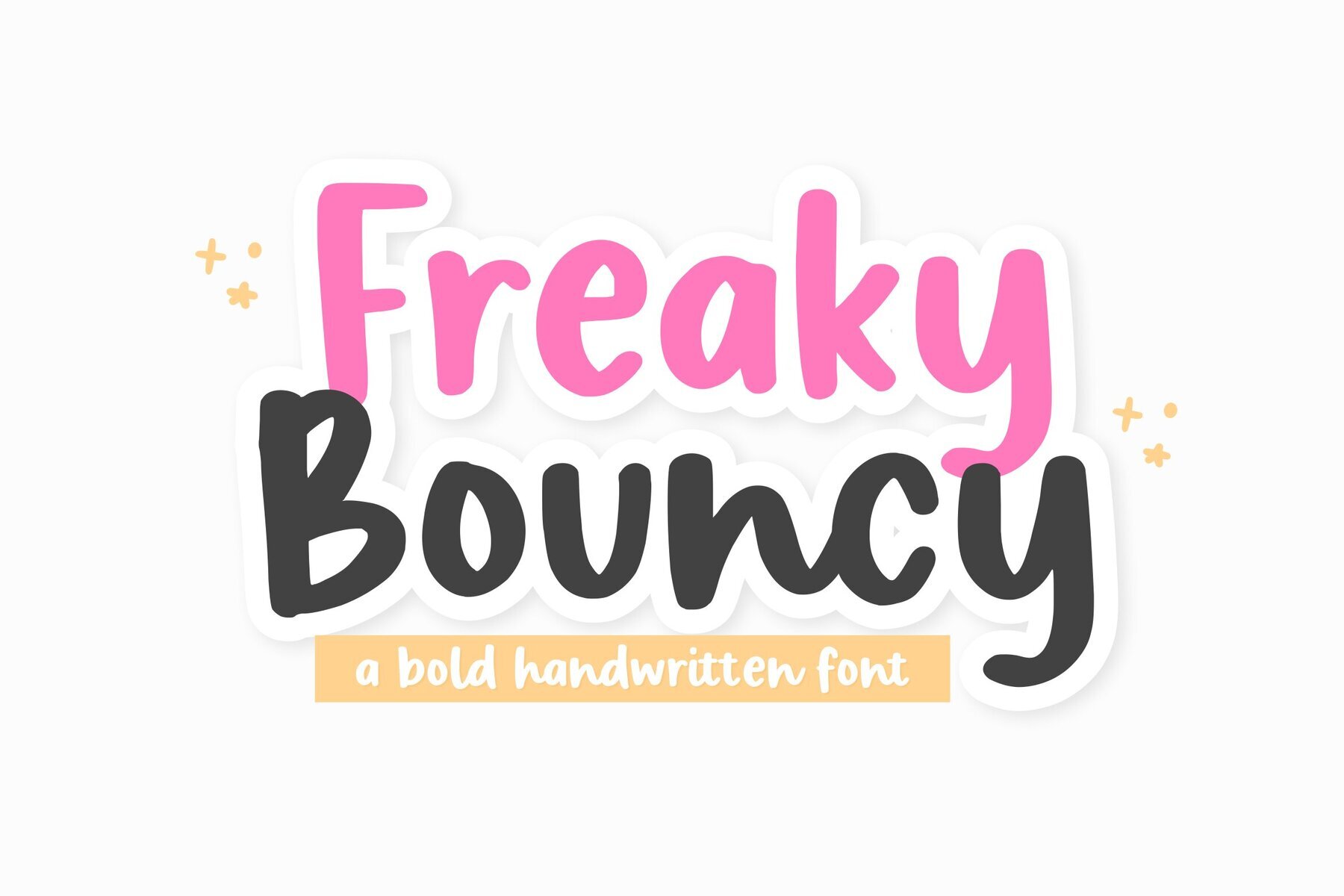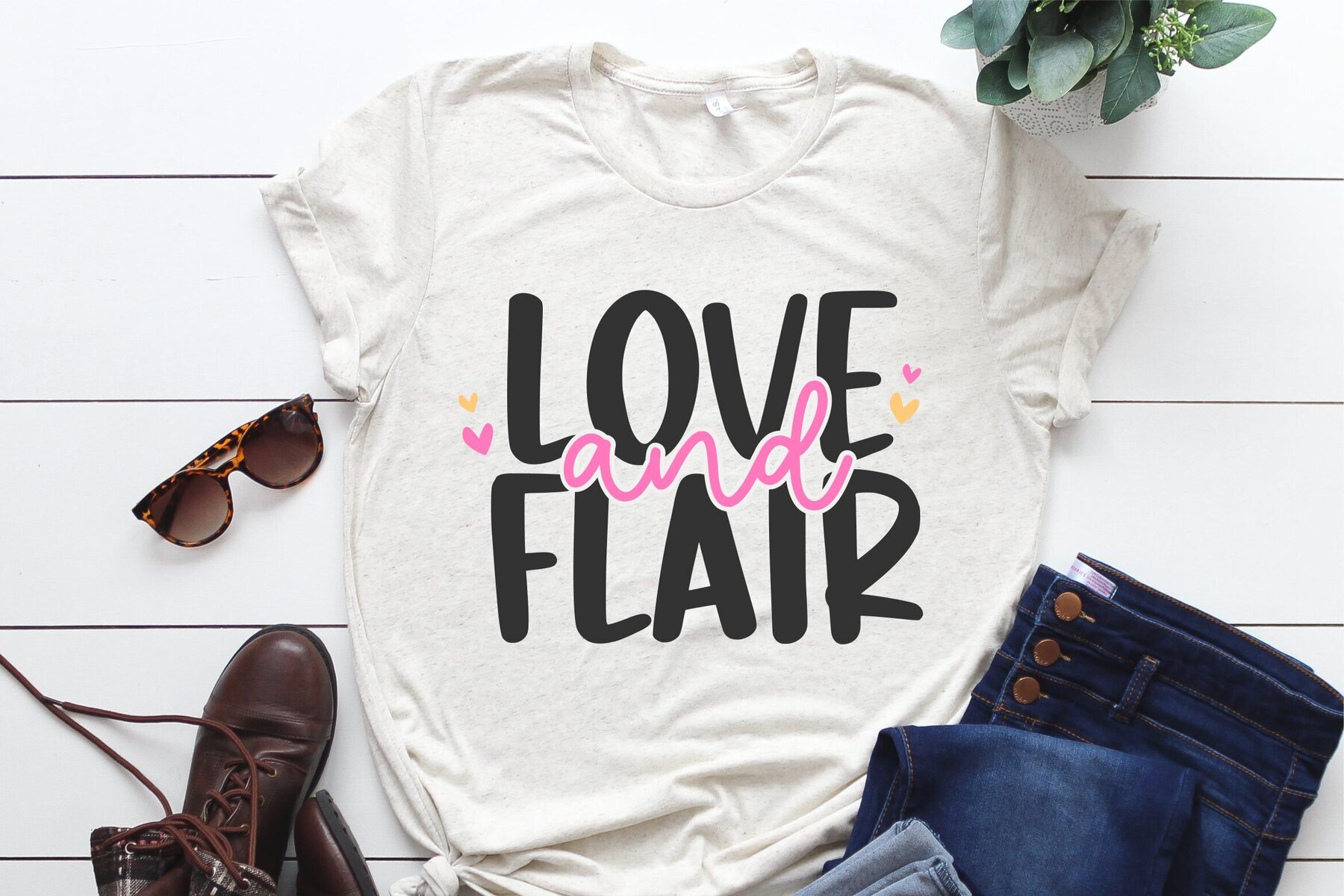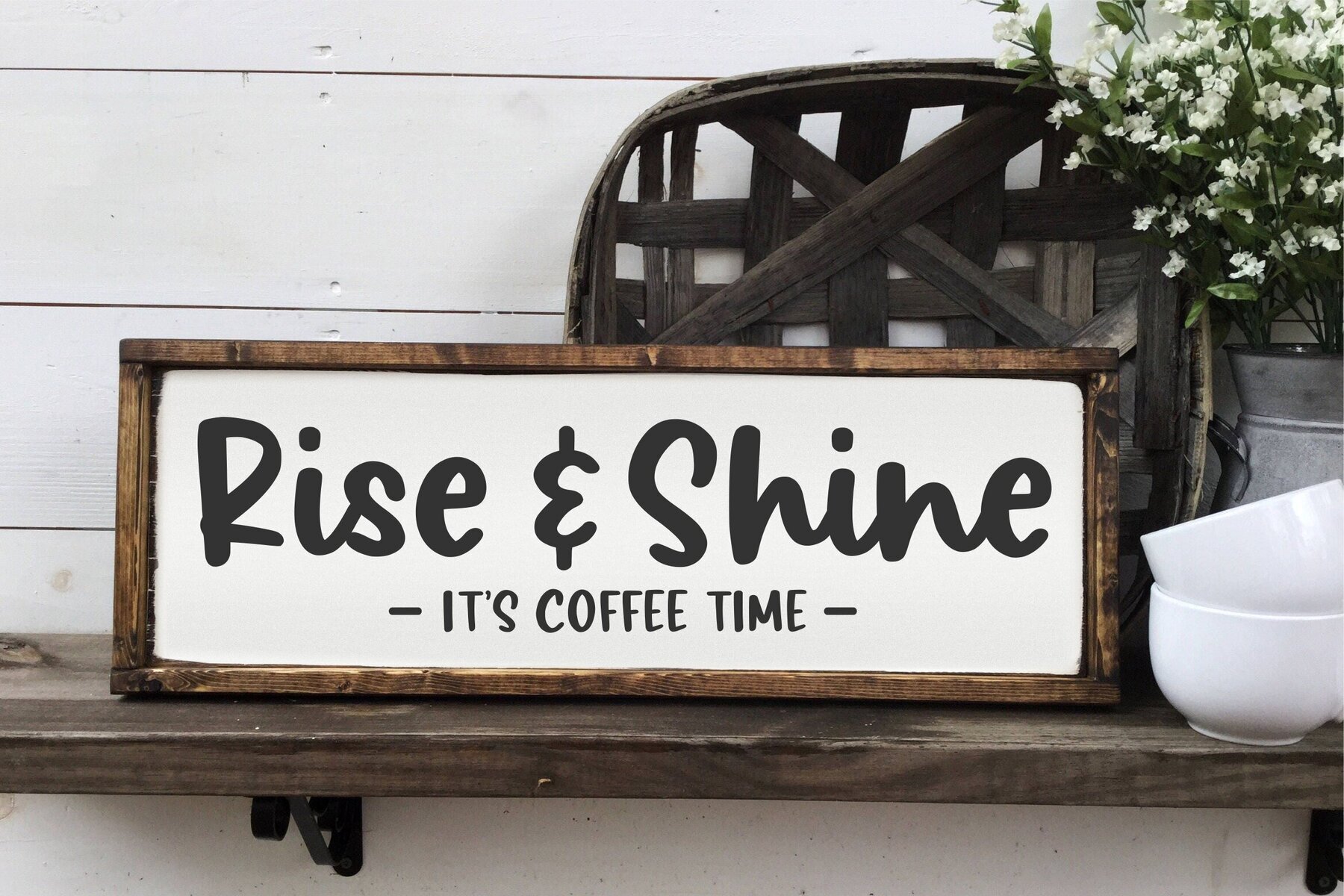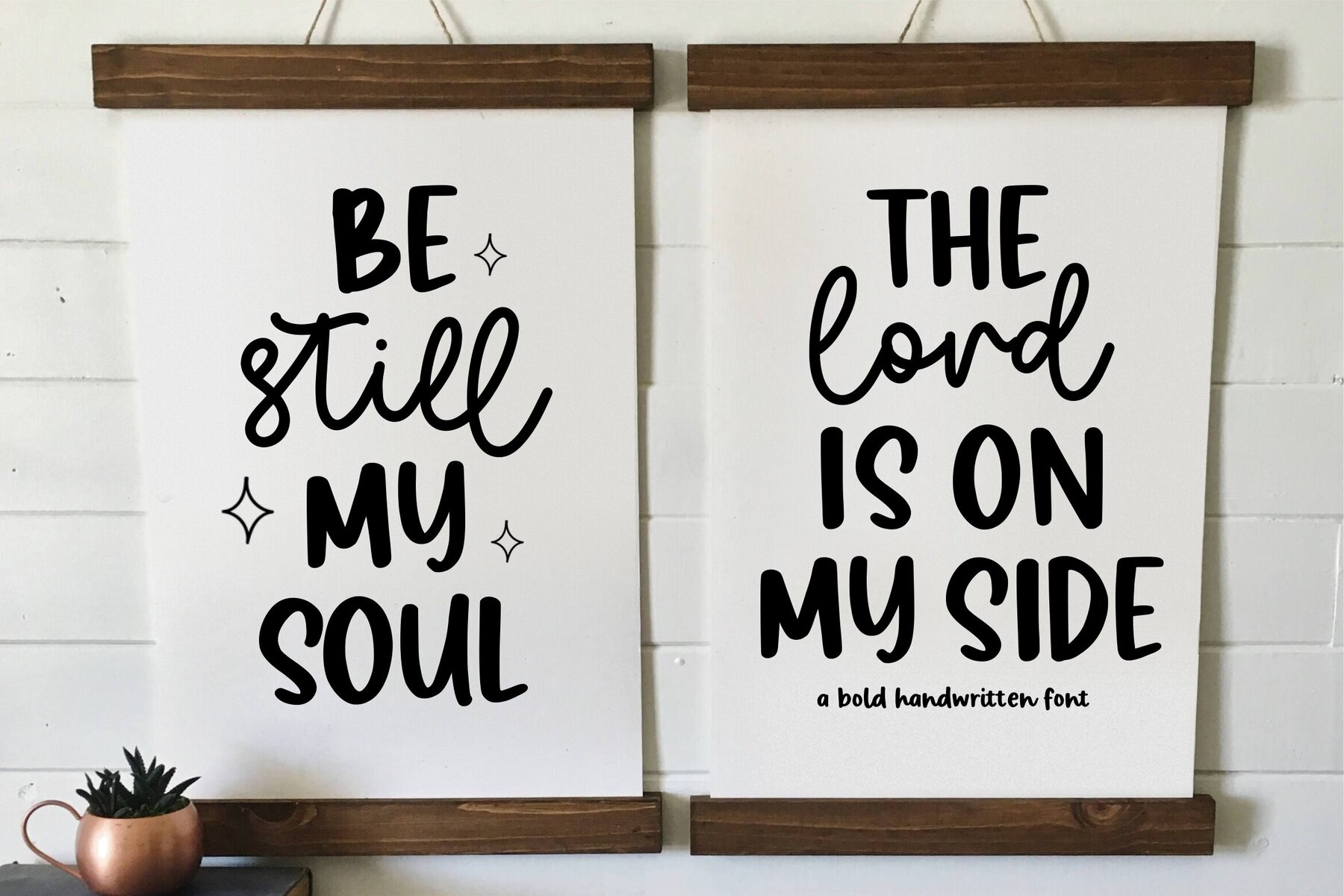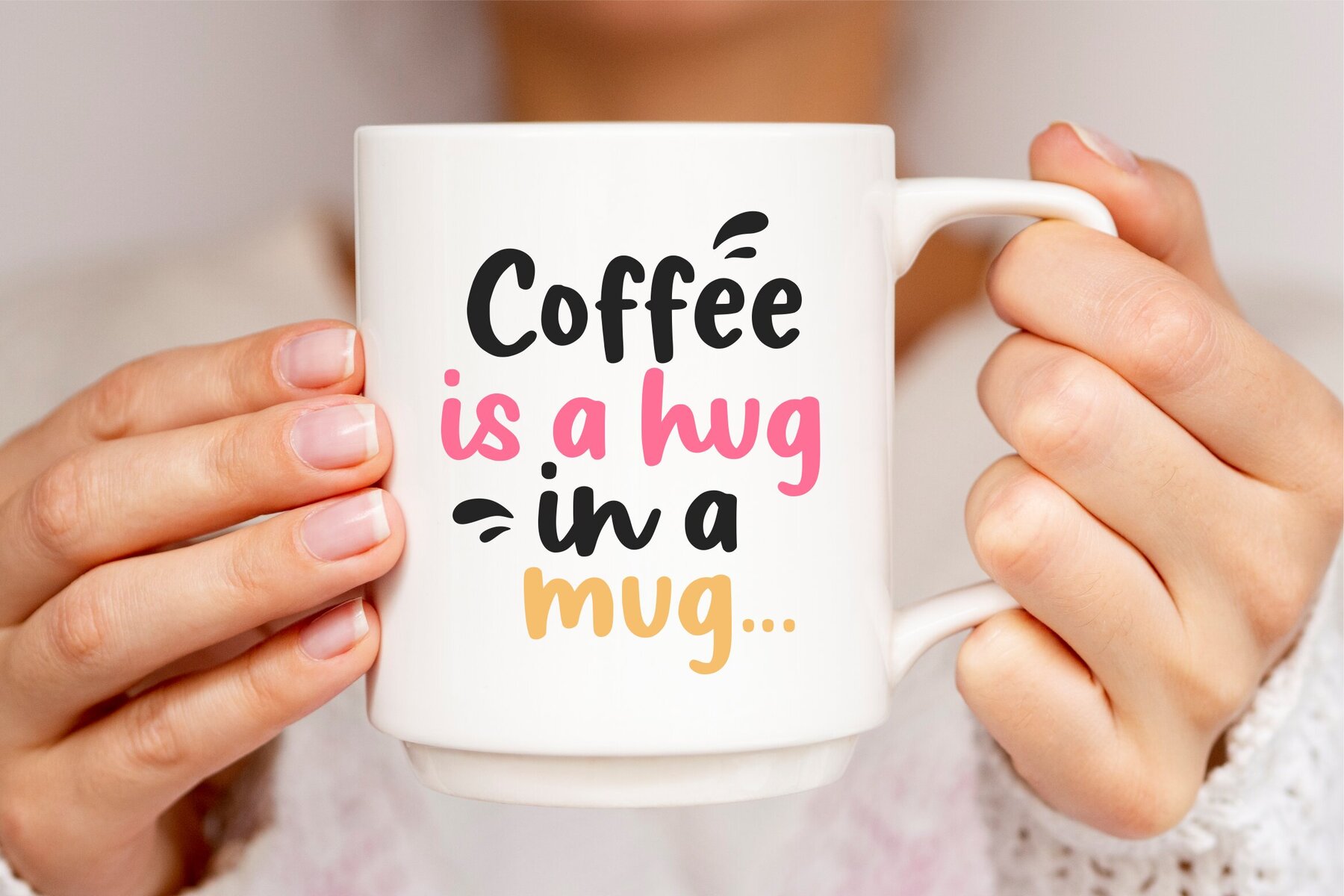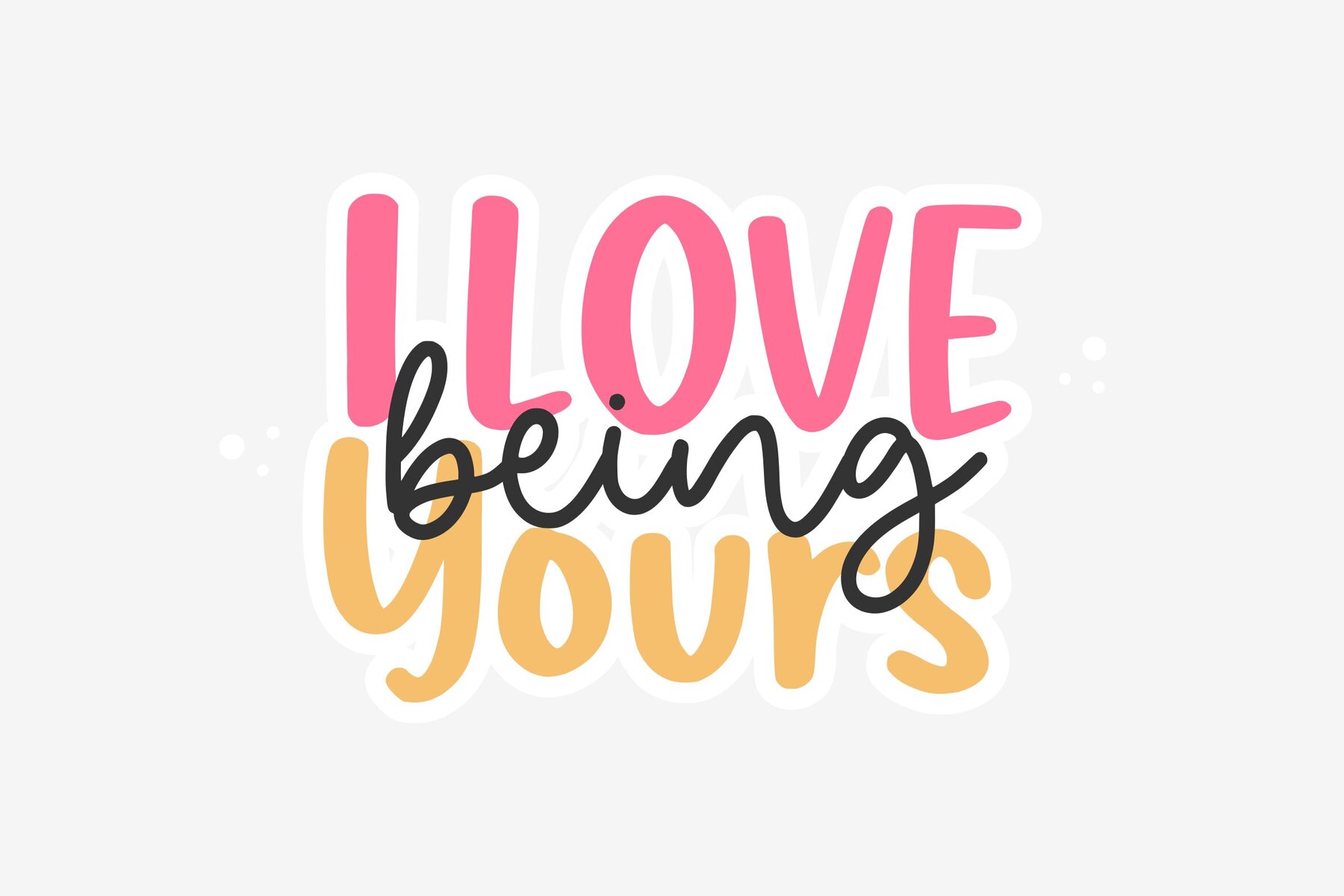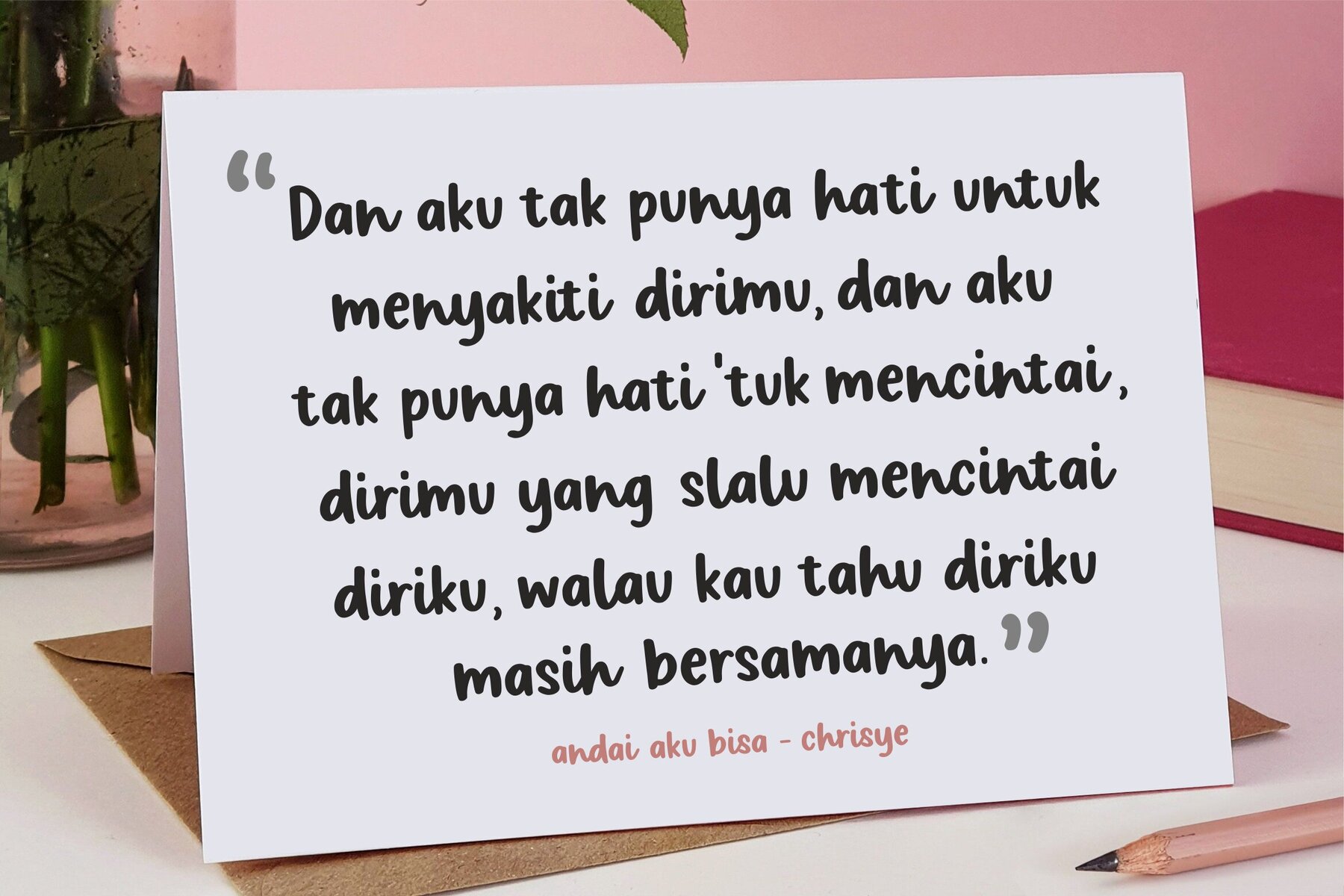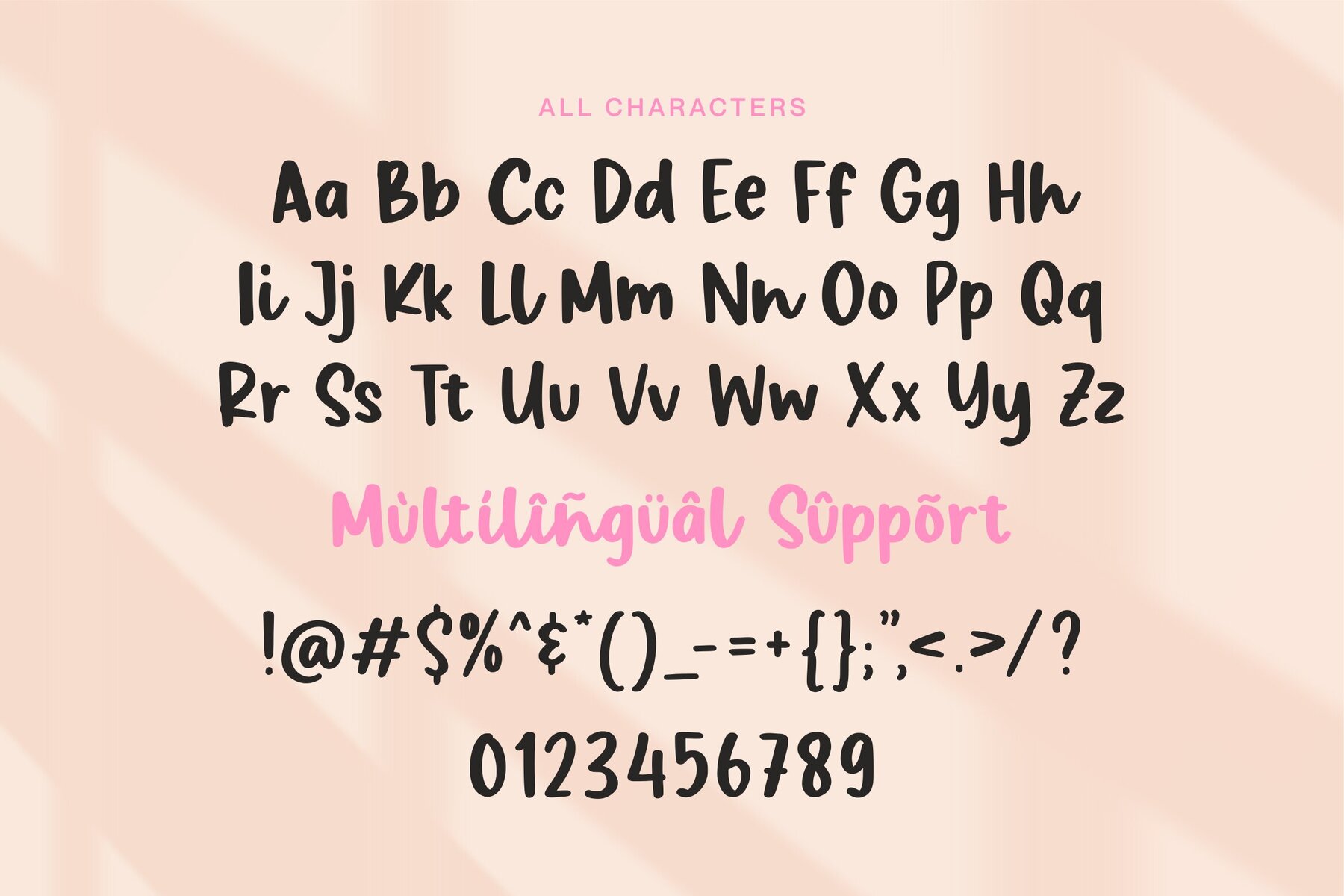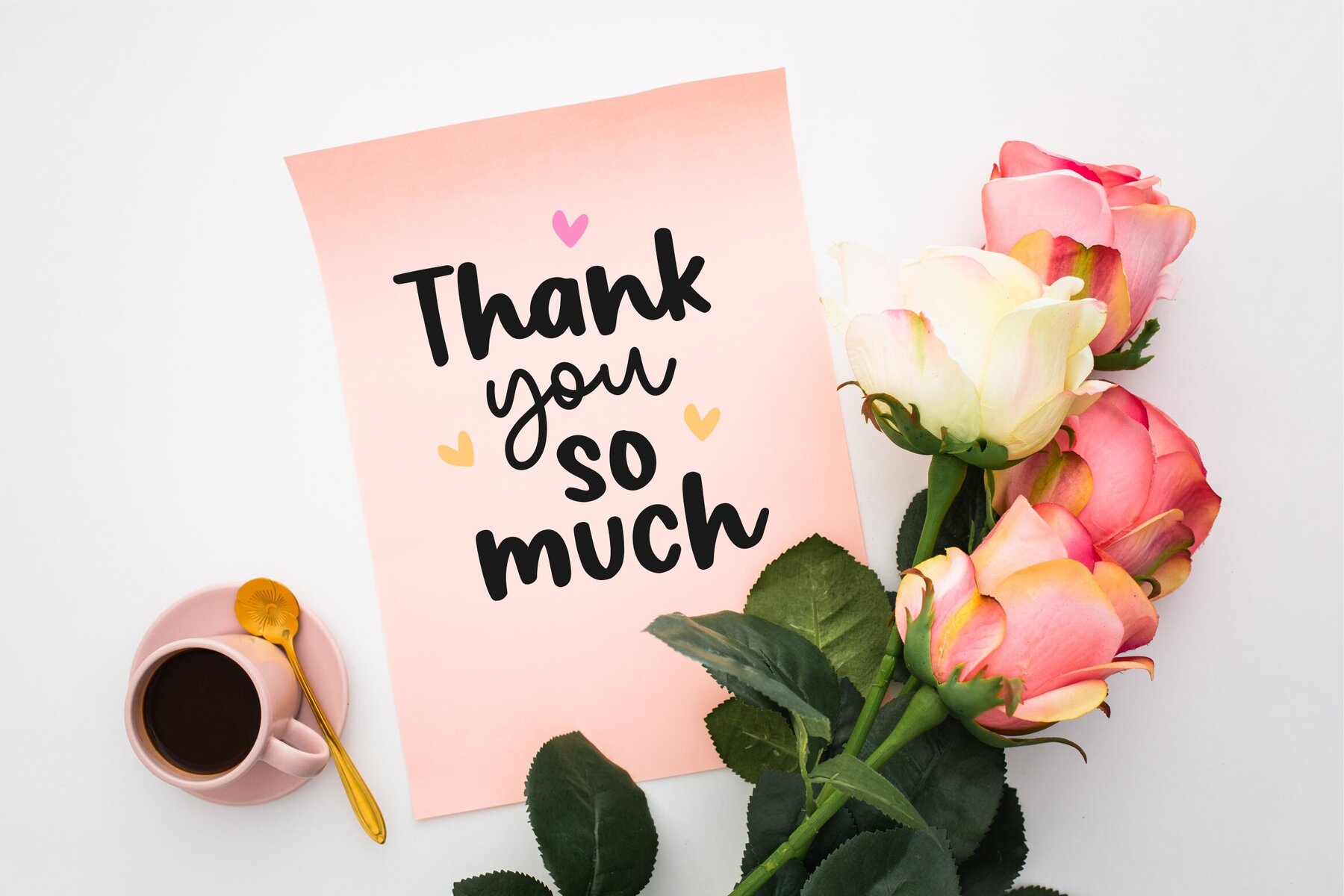
Freaky Bouncy Font
Freaky Bouncy Regular
Freaky Bouncy effortlessly lends itself to contemporary design needs. Whether you seek to craft compelling product packaging, branding projects, or social media graphics, this typeface offers a flexible solution. It's an ideal choice for adding character to magazine layouts, wedding invitations, or expressive displays against backgrounds.Freaky Bouncy: A Versatile Typeface for Diverse Applications